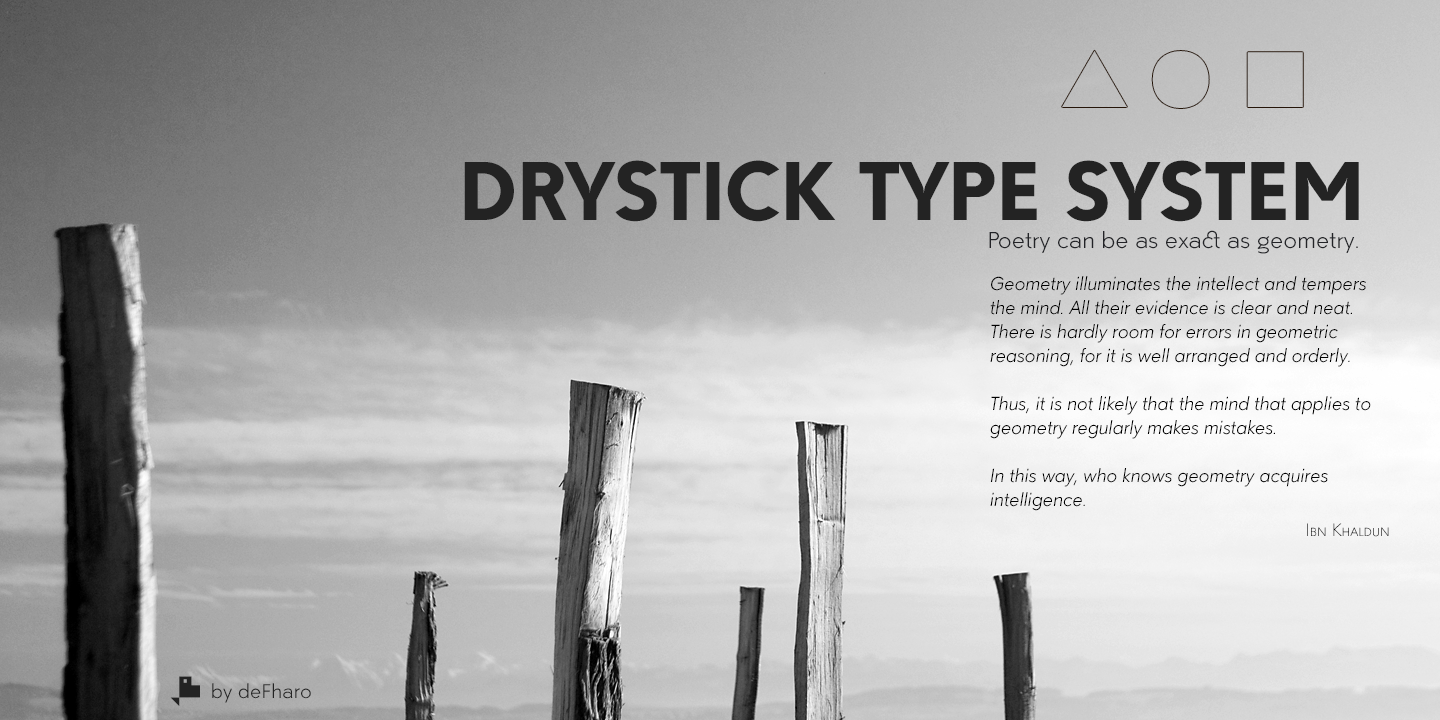
Drystick Geo Grotesk Font is perfect for minimalist architecture firms, modern design studios, contemporary art galleries, industrial product branding, cutting-edge technology companies, avant-garde fashion labels, geometric pattern designs, urban planning documents, modernist exhibition materials, and progressive corporate identities that require precise typography with geometric purity and industrial sophistication.
What makes Drystick Geo Grotesk Font so exciting is its masterful fusion of strict geometric principles with grotesk typography traditions that creates an uncompromisingly modern aesthetic with industrial precision. This font features sharp, angular letterforms with mathematical accuracy and minimal ornamentation that embody the essence of contemporary design philosophy. The systematic approach to character construction eliminates unnecessary elements while maintaining optimal functionality, making it perfect for brands that prioritize clarity, precision, and modernist design principles.
The Drystick Geo Grotesk Font family includes multiple weights and styles: Thin, Light, Regular, Medium, Bold, Black, and their corresponding Italic variants. Each weight maintains the signature geometric grotesk character while offering comprehensive flexibility for modernist design applications and systematic typographic hierarchies.
Modernist designers consistently choose Drystick Geo Grotesk Font Free Download for projects requiring precise geometric typography that embodies industrial design principles and contemporary minimalism. Whether you're developing architectural brand identities, creating modernist publication layouts, designing industrial product interfaces, or crafting cutting-edge marketing campaigns, this font delivers exceptional precision and geometric authenticity. The font's comprehensive character set includes technical symbols and supports systematic design approaches while ensuring optimal legibility across all modern platforms, making it an indispensable tool for designers working on contemporary projects that demand geometric precision, industrial clarity, and systematically designed typography solutions with modernist sophistication and grotesk functionality.